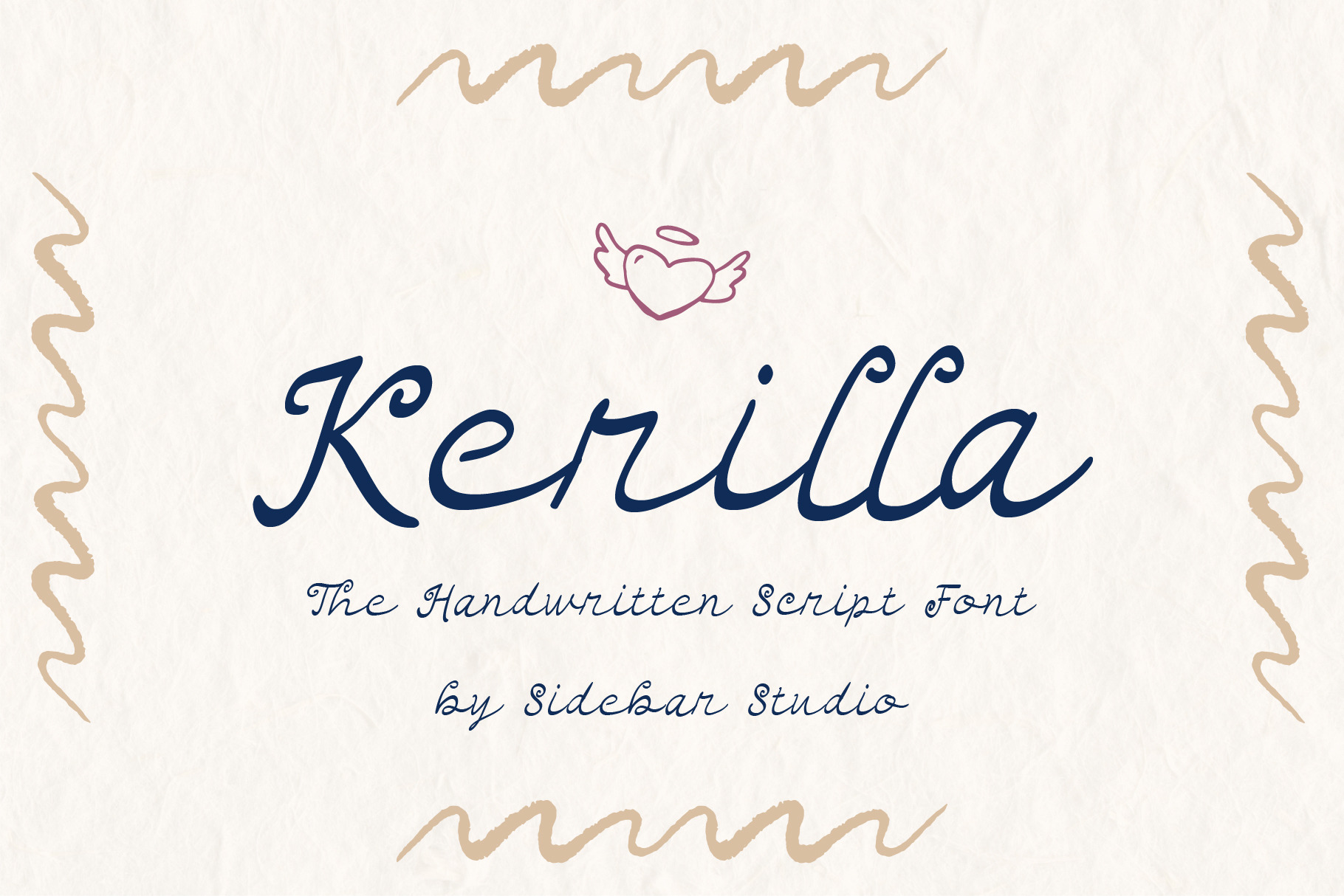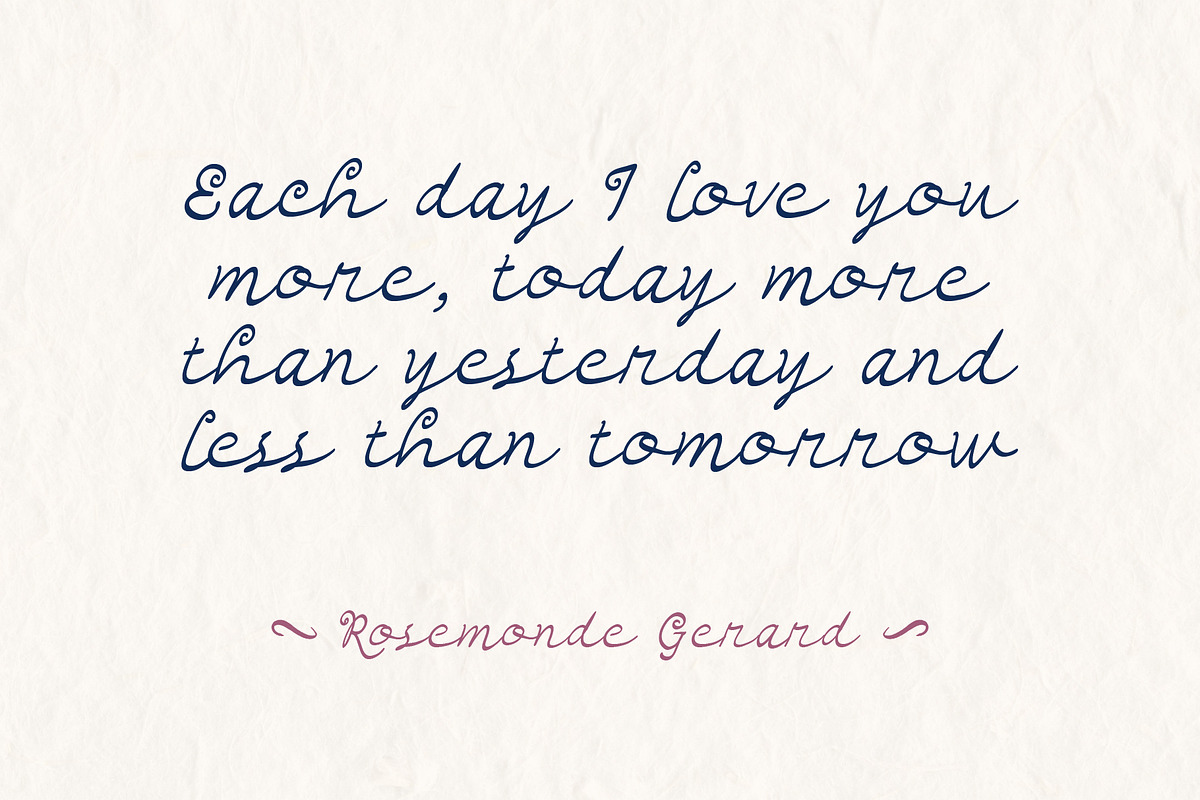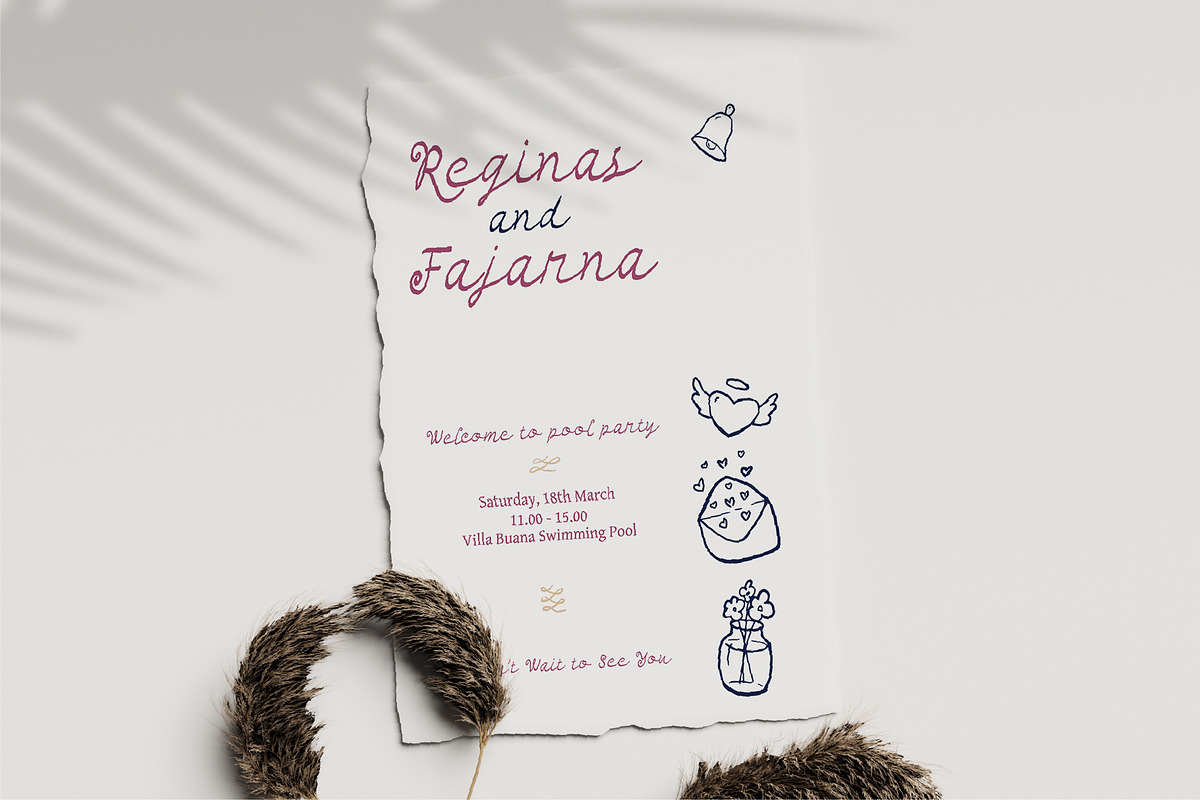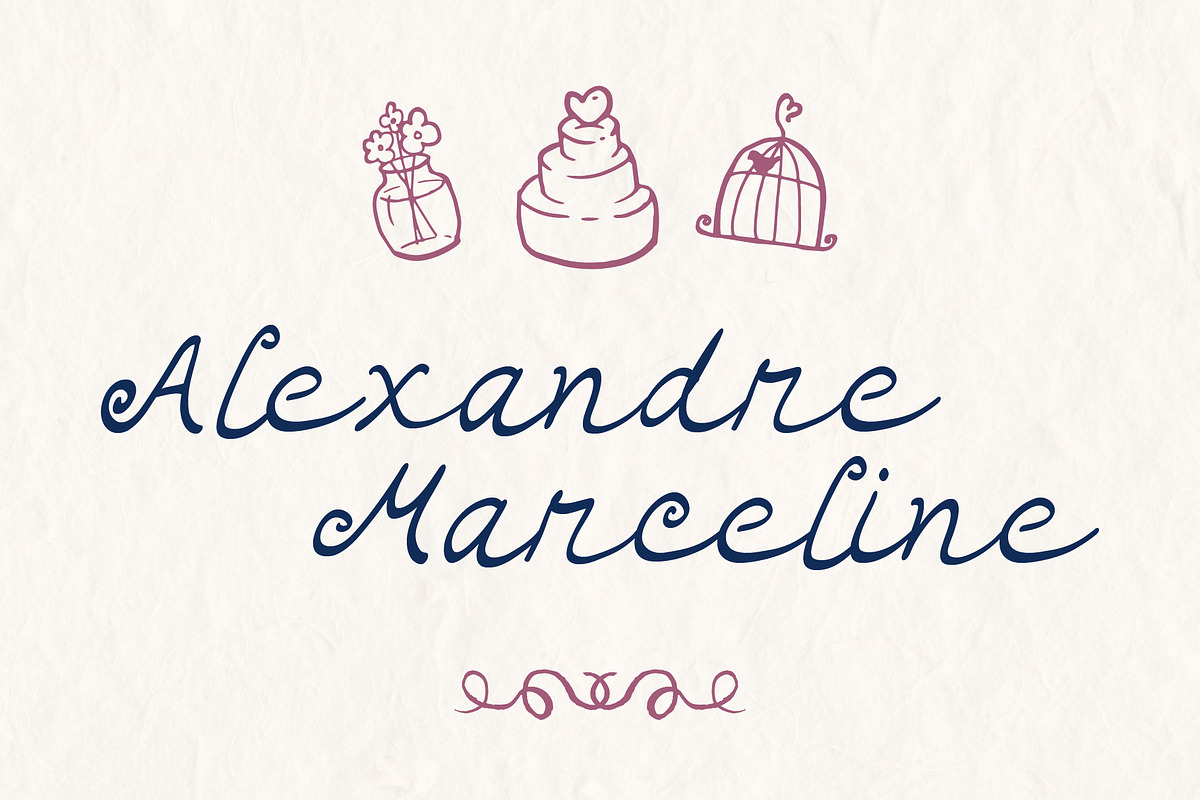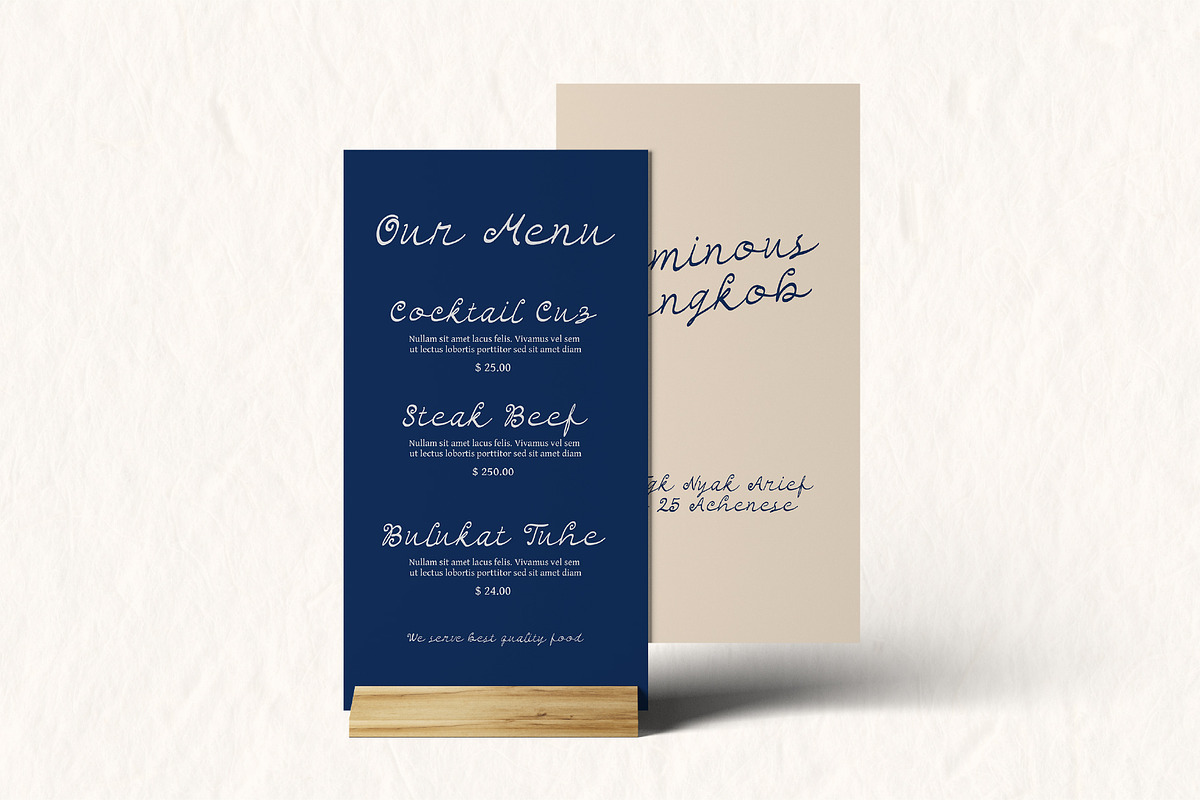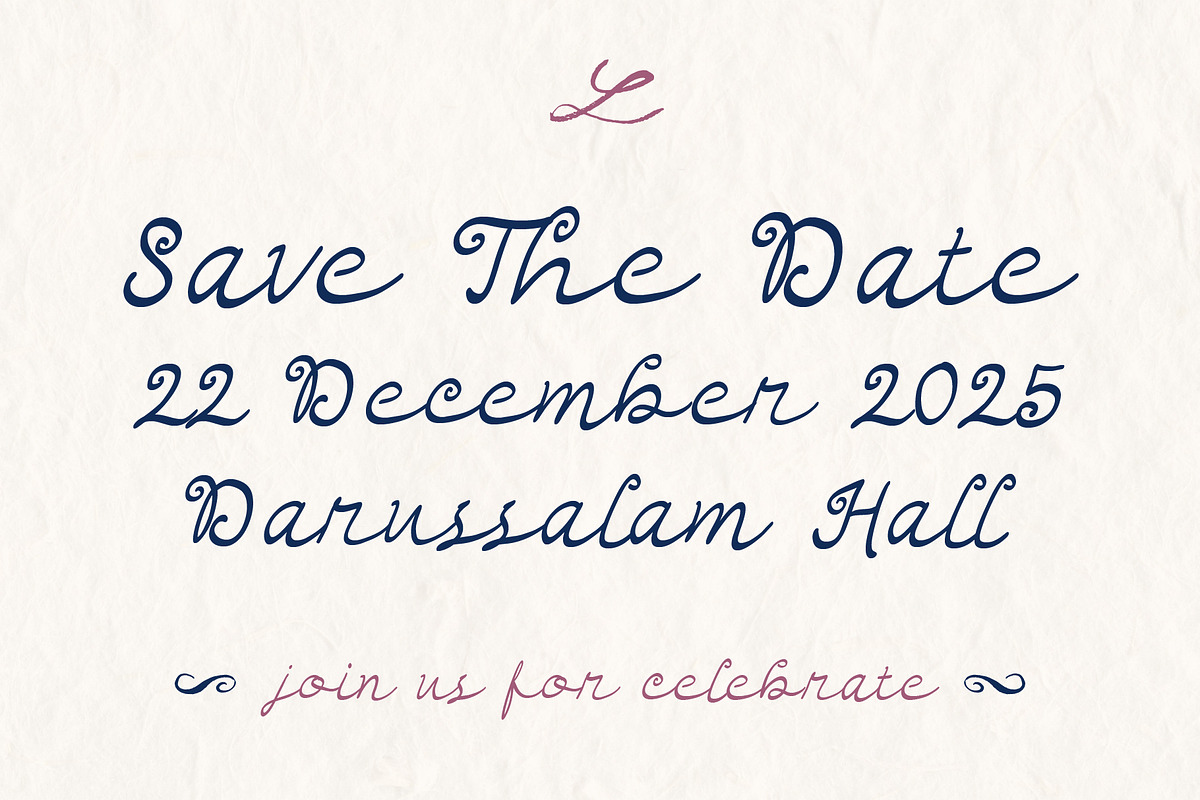
Kerilla Handwritten Font
Kerilla – A Charming Handwritten Script Font Introducing Kerilla, a beautifully crafted handwritten script font that exudes elegance and warmth. Designed with smooth curves and a natural flow, Kerilla captures the essence of handwritten charm, making it perfect for a variety of creative projects.
Kerilla’s delicate yet confident strokes give your designs a sophisticated and personal touch. Its fluid characters create a harmonious rhythm, ensuring readability while maintaining a unique handcrafted appeal.
Whether you're designing for a romantic occasion, a stylish brand, or heartfelt messaging, Kerilla is the perfect script font to bring your vision to life.